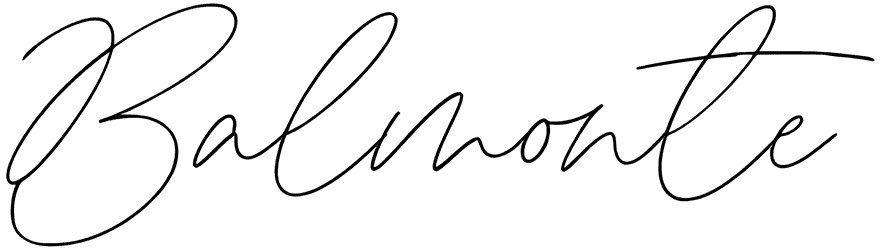
Balmonte Font
You can totally count on this delicate calligraphy font with its eye-catching mood to engage many viewers. Smooth letters of Balmonte font convey a spirit and ravishing vibe, and the good news is you have almost all characters. Use this soft signature font to create a wedding invitation card or other creative designs, and reveal your artistic skills.